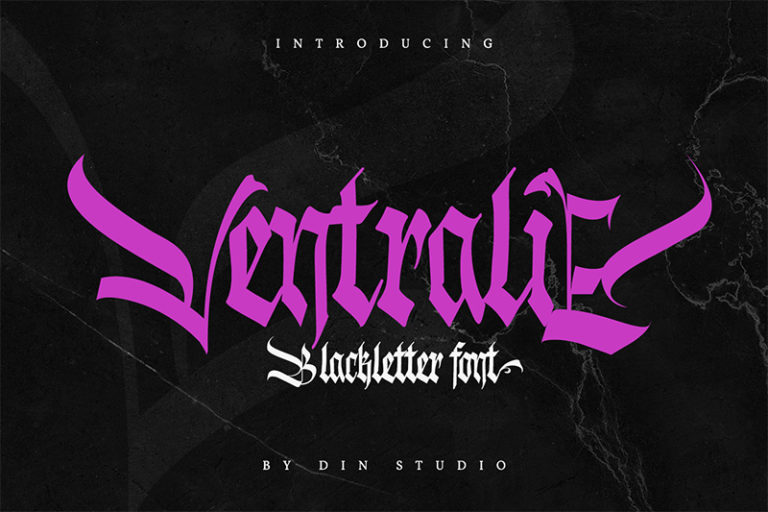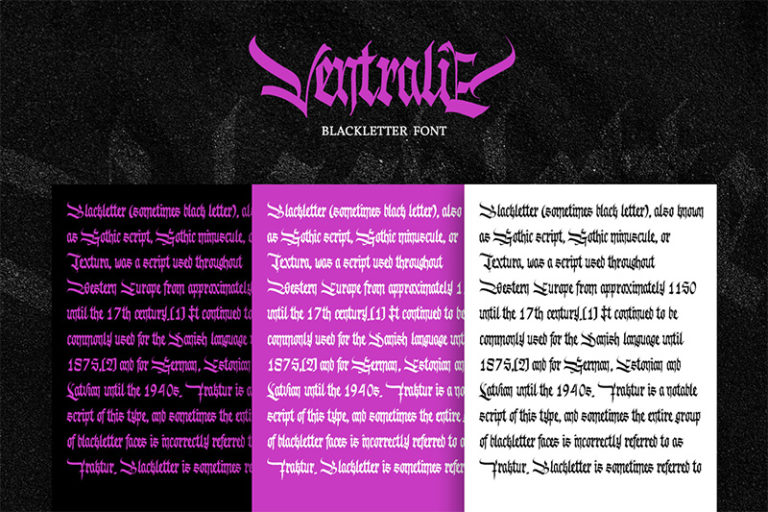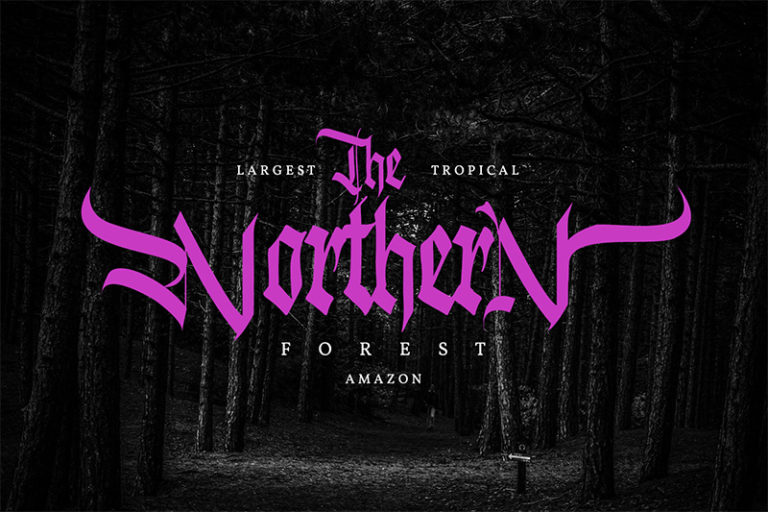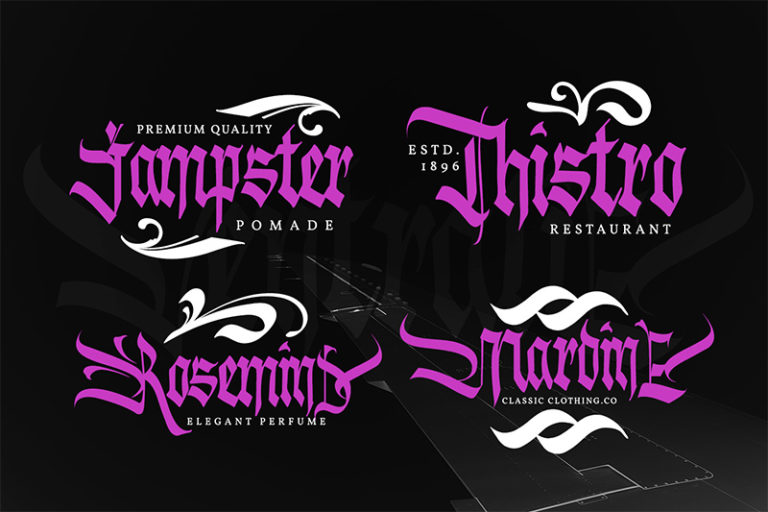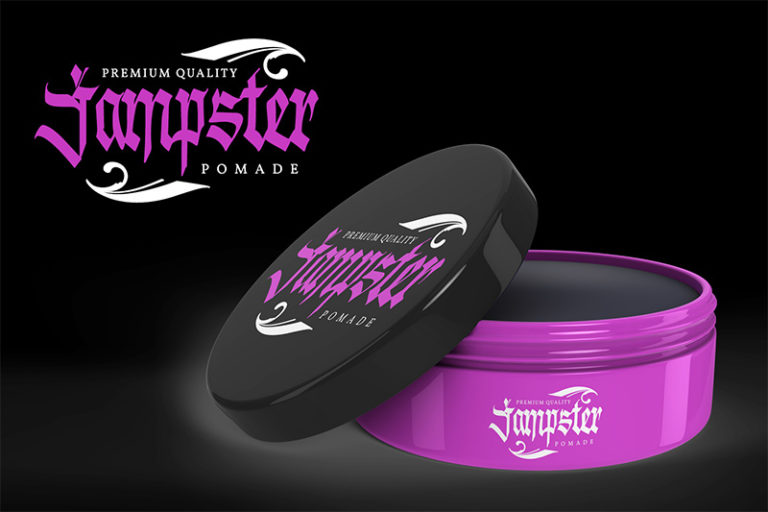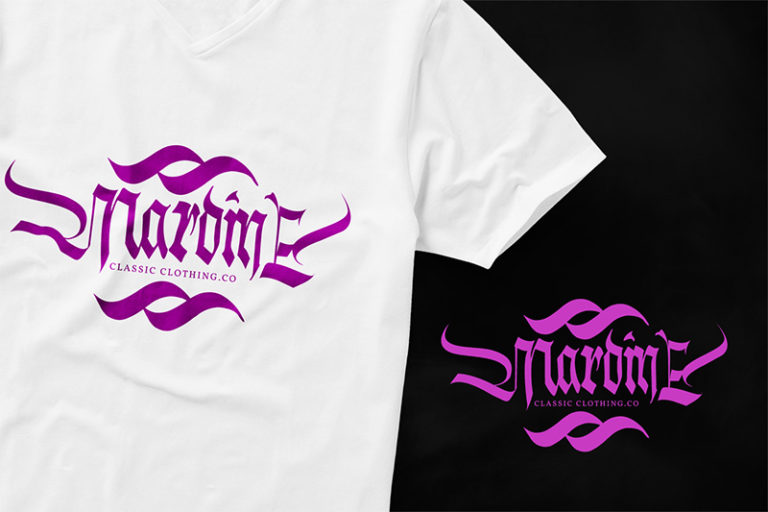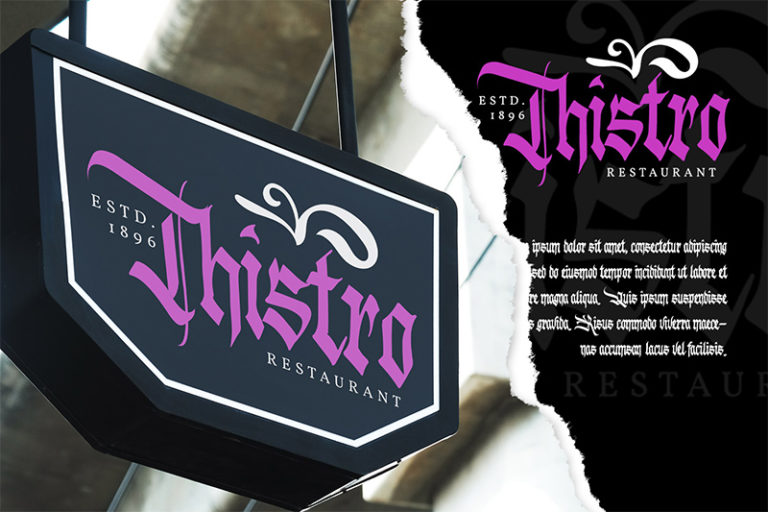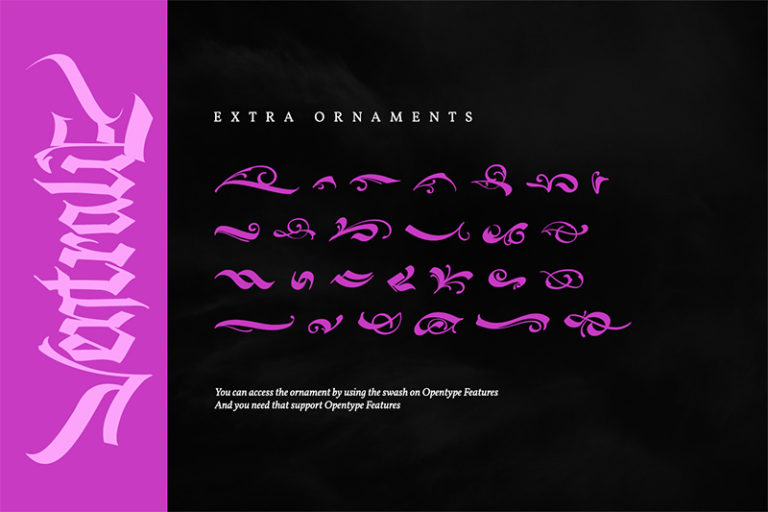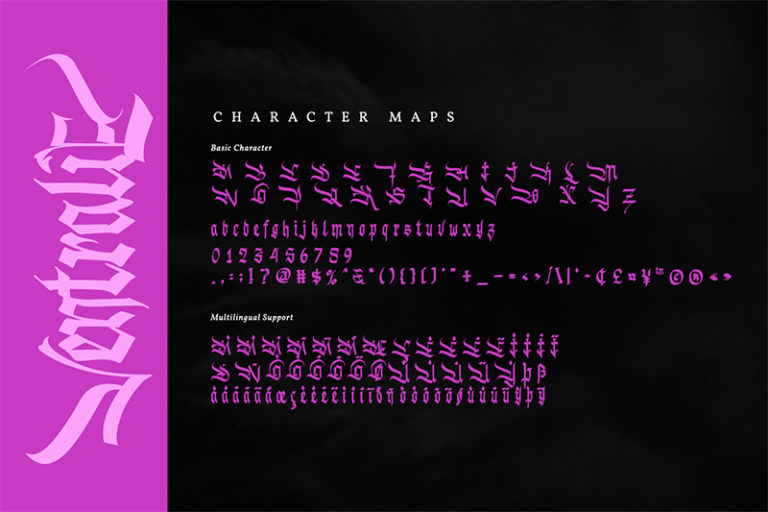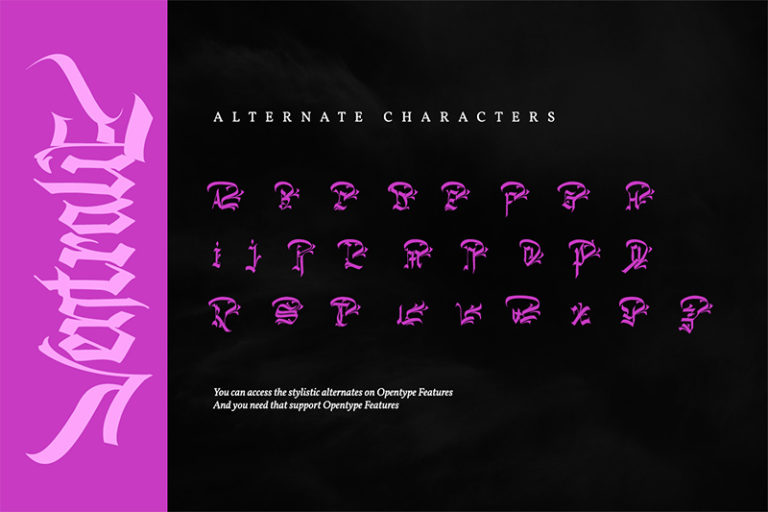
Ventralie – Fraktur Blackletter Display Font
Ventralie
Ventralie is authentic and modern blackletter font. The font is suitable for any branding project like logo, t-shirt printing and many more. Outstanding in a wide range of contexts. See the previews above to get some inspiration on how you can use them. Happy Designing!
Featured :
– Alternates
– Accents (Multilingual characters)
– PUA encoded
– Numerals and Punctuation (OpenType Standard)
– Extra Ornaments